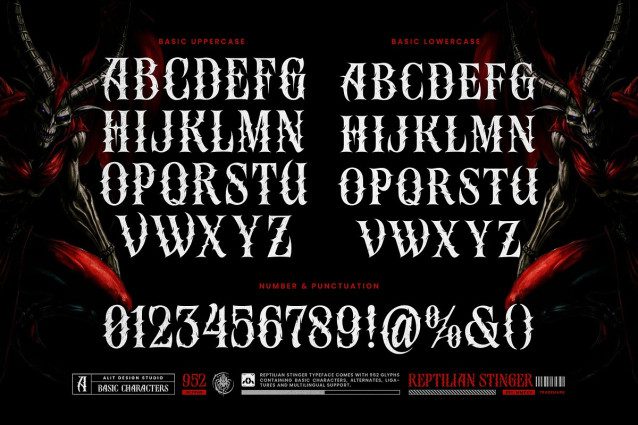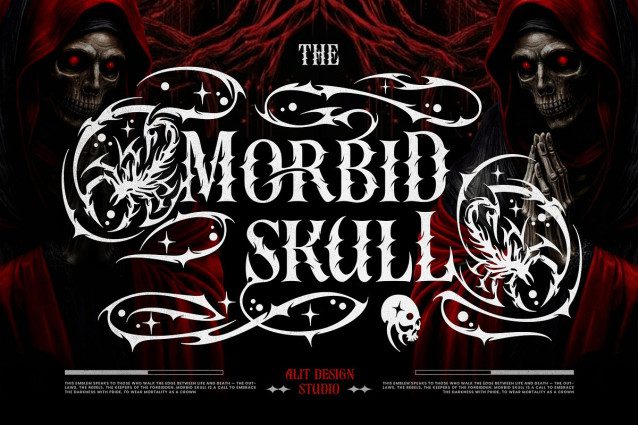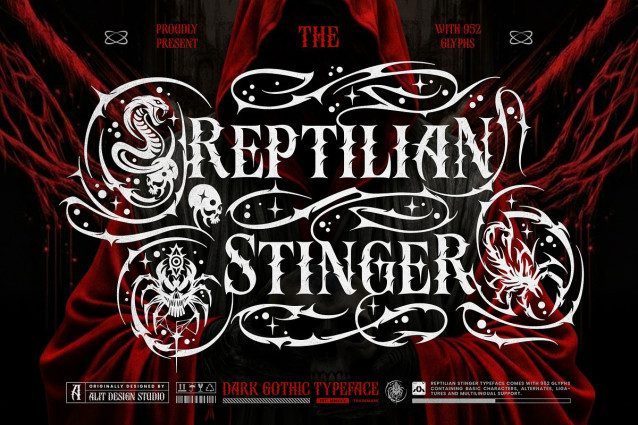
Reftilian Stinger Font
Reftilian Stinger Font an aggressive and menacing dark gothic typeface. This is not just a font; it’s an arsenal of predatory style, meticulously designed for projects that demand a sharp, powerful, and venomous aesthetic.
Reptilian Stinger is forged from the very essence of fear and shadow. The base letterforms are a “fierce serif” (blackletter) style, where each character is armed with dangerously sharp thorns and barbed edges. The flared, high-contrast strokes give it a dominant and brutal presence, perfect for making an unforgettable statement.
The true power of Reptilian Stinger is unleashed through its massive library of over 952 glyphs. This font crawls with a stunning collection of stylistic alternates, ligatures, and intricate swashes inspired by the most lethal creatures of the night.